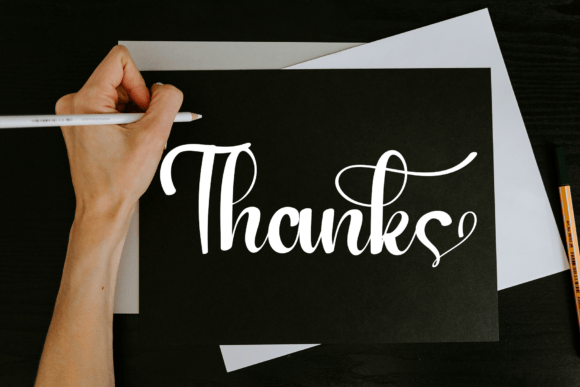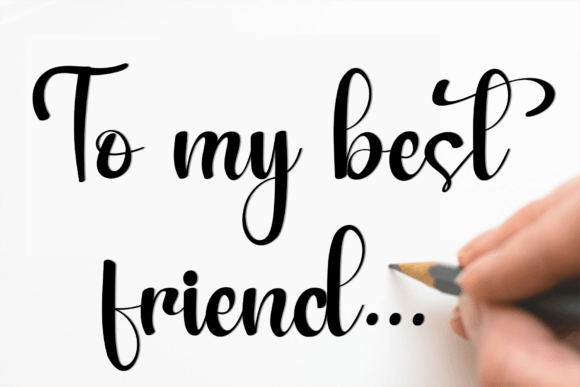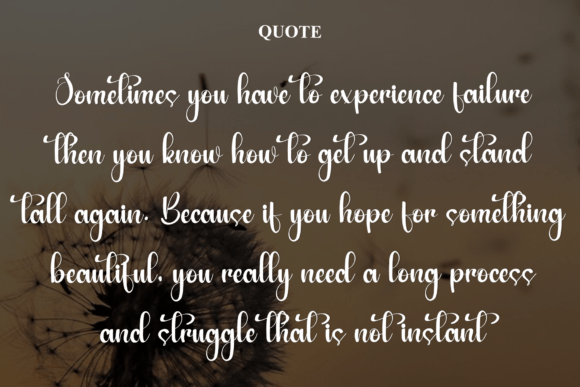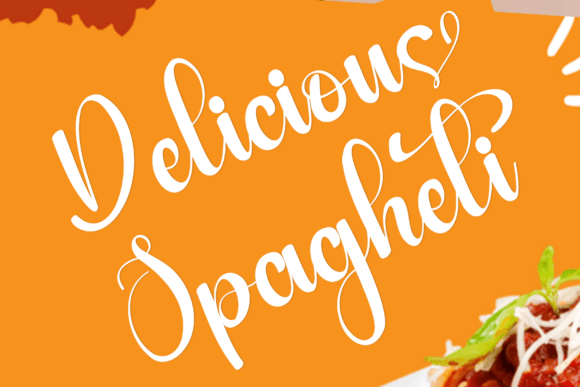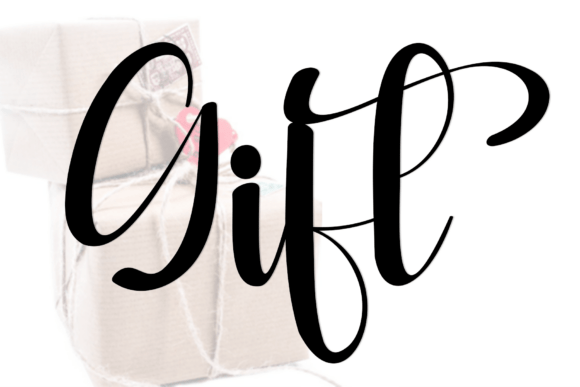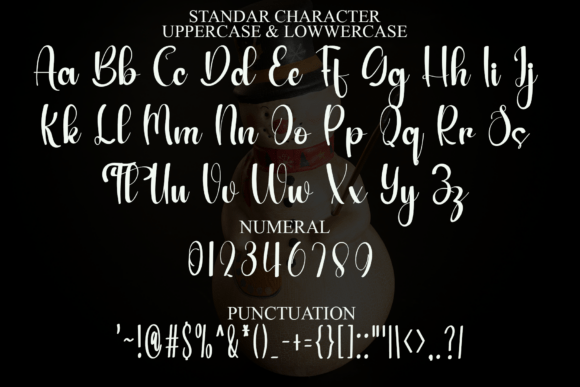
Introduction to Ladies Font
As a designer, have you ever stumbled upon the perfect font that makes your creative project come alive? For me, that moment was when I discovered the Ladies Font. Its playful, hand-drawn strokes and warm aesthetic instantly captured my attention, and I knew I had to learn more about this design resource.
The Ladies Font is a casual and creative font that exudes warmth and friendliness, making it perfect for personal projects, invitations, and social media graphics. With its charming, hand-drawn aesthetic, this font adds a fun and unique touch to any design. Whether you’re working on a high-quality project or just need a quick graphic, the Ladies Font is a valuable addition to any designer’s toolkit.
Ladies Font
- Unique, elegant script font perfect for feminine or vintage-themed designs
Honest Review: Ladies Font
The Ladies Font is a beautiful, elegant script font that would be perfect for wedding invitations, baby shower decorations, or any other project that requires a touch of sophistication. The font features a transparent background, making it easy to customize and pair with any color scheme.
What works well: ✨ The Ladies Font is incredibly versatile and can be used for a wide range of design projects. The font is also very easy to use, even for those who are new to font design. The transparent background makes it easy to layer and customize the font to fit your design needs.
Overall, I was impressed with the Ladies Font and would definitely recommend it to designers who are looking for a high-quality, elegant script font. The font is perfect for creative projects that require a touch of sophistication and elegance.
- Perfect for wedding invitations, baby shower decorations, and other projects that require elegance
Ladies Font is commonly used for creating feminine and elegant designs.
It is ideal for use in wedding invitations, greeting cards, and other creative projects that require a touch of elegance.